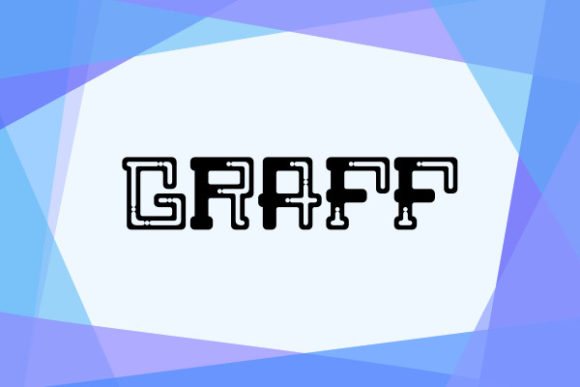
Introducing Graff Font: The Playful and Cool Display Font by Rikyozone
Are you tired of using the same old fonts in your designs? Look no further! Graff Font is here to shake things up with its distinct and fun appearance. Created by Rikyozone, Graff is a playful and cool display font that is sure to enhance your work and make it stand out from the crowd.
What Makes Graff Font So Special?
Graff Font is a unique and eye-catching font that is perfect for designers and crafters looking to add a touch of personality to their work. Its playful and fun design makes it ideal for use in a variety of projects, from posters and flyers to logos and branding materials. The font’s distinct appearance is sure to grab attention and leave a lasting impression on your audience.
Key Features of Graff Font
- Playful and Cool Design: Graff Font has a fun and playful design that is sure to add a touch of personality to your work.
- Distinct Appearance: The font’s unique design makes it stand out from other fonts, ensuring your work will be noticed.
- Display Font: Graff Font is a display font, making it perfect for use in headlines, titles, and other display text.
- Easy to Read: Despite its playful design, Graff Font is easy to read, making it perfect for use in a variety of projects.
Uses for Graff Font
Graff Font is a versatile font that can be used in a variety of projects, including:
- Posters and Flyers: Graff Font is perfect for use in posters and flyers, adding a touch of personality and fun to your designs.
- Logos and Branding Materials: The font’s unique design makes it ideal for use in logos and branding materials, helping to create a lasting impression on your audience.
- Social Media Graphics: Graff Font can be used to create eye-catching social media graphics that are sure to grab attention.
- Signs and Banners: The font’s bold and playful design makes it perfect for use in signs and banners.
Why Choose Graff Font?
There are many reasons to choose Graff Font for your next project. Here are just a few:
- Unique Design: Graff Font has a unique and eye-catching design that is sure to make your work stand out.
- High-Quality: Graff Font is a high-quality font that is designed to produce crisp and clear text.
Graff Font is a playful and cool display font that is sure to enhance your work with its distinct and fun appearance. Created by Rikyozone, Graff Font is perfect for designers and crafters looking to add a touch of personality to their projects. With its unique design, ease of use, and high-quality construction, Graff Font is a great choice for anyone looking to take their designs to the next level.